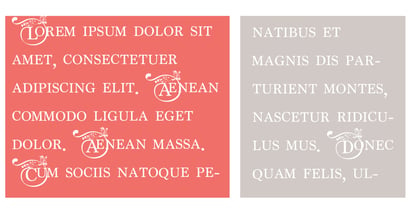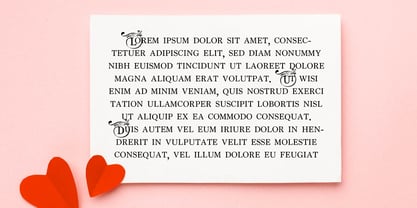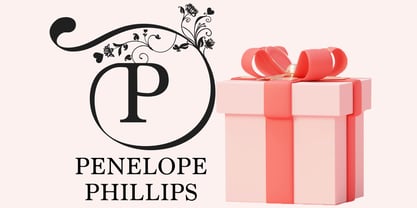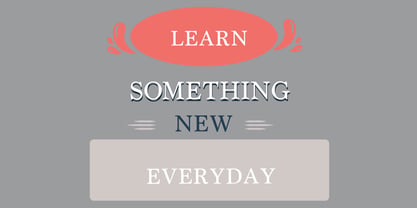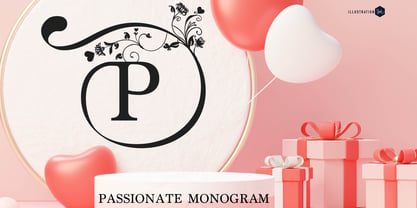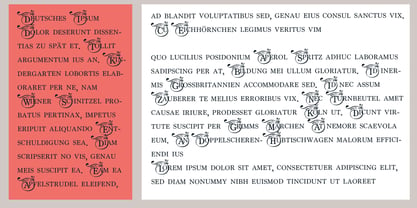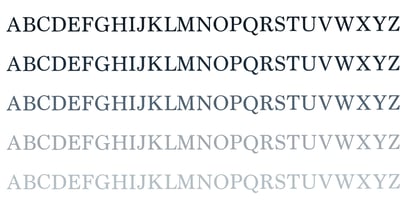
ZP Passionate Monogram
by Illustration Ink
The ZP Passionate Monogram Font Family was designed by Illustration Ink and published by Illustration Ink. ZP Passionate Monogram contains 3 styles and family package options. More about this family
This hand-crafted font is pretty, serif monogram font that features a big swooping flourish around each uppercase letter. There are 3 variations included. A hand-crafted font is a font that is designed to look like it was written by hand. It is often used for invitations, greeting cards, and other items. Handwritten fonts can be either formal or informal, and they can be used for a variety of purposes. Some of the characteristics of handwritten fonts include: The letters are not perfectly uniform in size or shape. There may be slight variations in the spacing between letters and words. The font may have a "wiggly" or "squiggly" appearance. The font may be difficult to read at small sizes. Handwritten fonts can be a great way to add a casual touch to your designs. They can also be used to create a sense of nostalgia or whimsy. However, it is important to choose a handwritten font that is appropriate for the project you are working on. A formal handwritten font may not be appropriate for a casual invitation, while an informal handwritten font may not be appropriate for a corporate document.